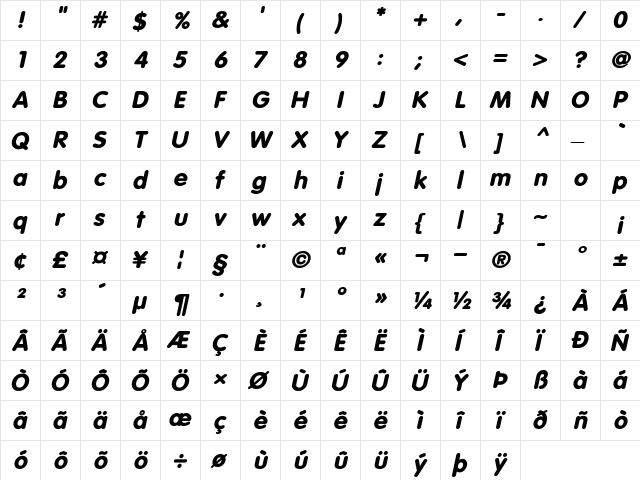
CorporateRoundedExtraBold Oblique Font Preview
Design Context for CorporateRoundedExtraBold Typeface
CorporateRoundedExtraBold uses gentle rounded endings to create a warm, inviting typographic personality — less corporate than geometric sans, more refined than playful display fonts. Its italic angle brings a sense of urgency and motion to the letterforms. The heavy weight commands attention and anchors typographic hierarchies.
Well-suited to UI design, mobile interfaces, and any brand that wants approachability without sacrificing clarity.
Font Pairing: Pairs well with a rounded or humanist sans for body copy, maintaining the friendly tone without relying on CorporateRoundedExtraBold to carry extended reading.
Pro Tip: Use CorporateRoundedExtraBold for UI elements, app interfaces, and anywhere a friendly, approachable tone needs to be maintained without sacrificing clarity.